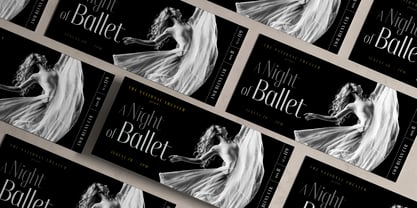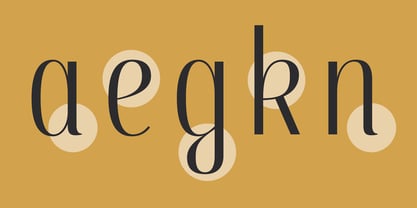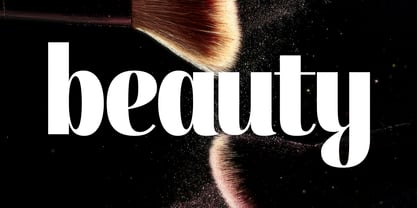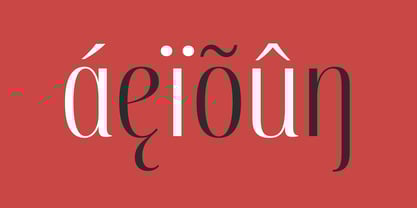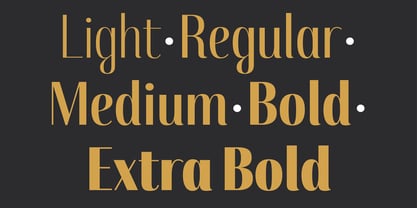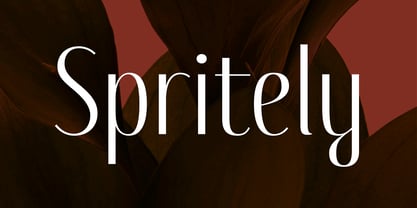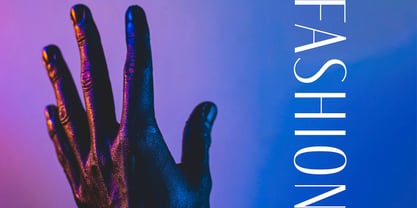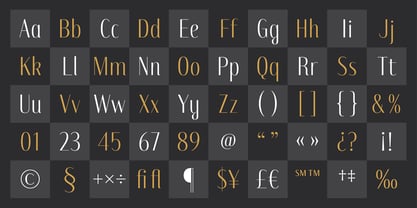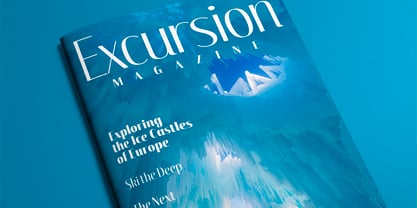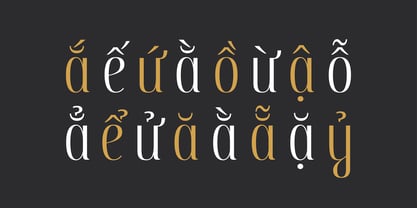
Spritely
La familia tipográfica Spritely fue diseñada por Kevin Foley y publicada por Kevin Foley Fonts. Spritely contiene 5 estilos y opciones de paquete familiar.
Spritely features a high-contrast design with dramatic thick-thin stroke variation that creates Didone-like elegance in a condensed sans serif format. Cursive-like terminals on letters like 'n' and 'l' reference pointed pen tradition, while looped characters like the 'k', 'g', and 'y', along with an italic-like 'e', bring a calligraphic character to the design.
These distinctive details emerged during a type design workshop while exploring pointed pen techniques. I began adding calligraphic-inspired finials and script-like elements, creating a condensed sans serif that radiates personality and sophistication.
The condensed proportions make Spritely ideal for display applications. It works beautifully for brand identities, signage, luxury packaging, and editorial layouts, particularly suiting fashion, beauty, travel, and entertainment brands seeking modern elegance. Case-sensitive punctuation ensures refined all-caps setting, while support for over 40 languages including full Vietnamese brings distinctive character to projects worldwide.